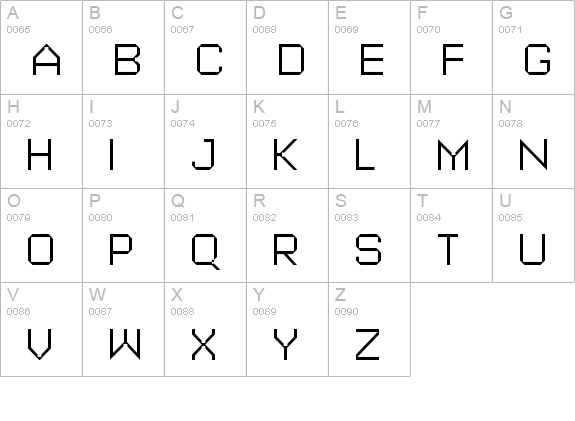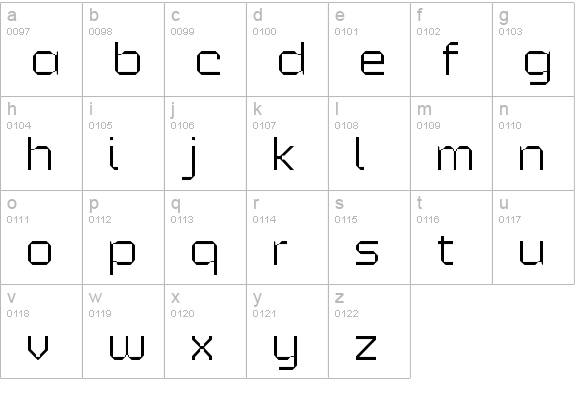
Alloy ExtraLight is an airy, ultra-refined variant in the Alloy typeface family \xE2\x80\x94 well suited to minimalist headlines and refined display use.
Alloy ExtraLight is a stunning and elegant font that exudes sophistication and modernity. With its sleek lines and delicate curves, this typeface is perfect for adding a touch of class to any design project. The light weight of the font gives it a refined and airy quality, making it ideal for use in branding, advertising, and editorial design. What's even better is that Alloy ExtraLight is available for free download at FontsMarket.com. This means you can easily access this beautiful font and incorporate it into your creative work without any cost. Don't miss out on the opportunity to enhance your designs with the timeless beauty of Alloy ExtraLight - download it today and elevate your projects to the next level.